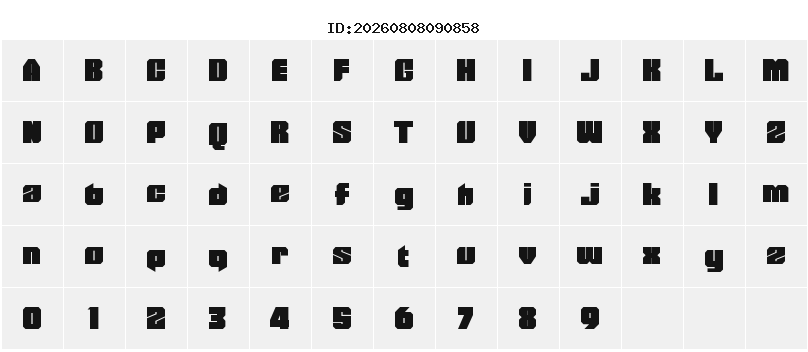
• Font Name: PowerChord
• Designer: Diego de Oliveira
About PowerChord.ttf
PowerChord.ttf is a modern, elegant sans-serif font designed for ultimate readability and visual harmony. Perfect for branding, headlines, web design, and print materials.